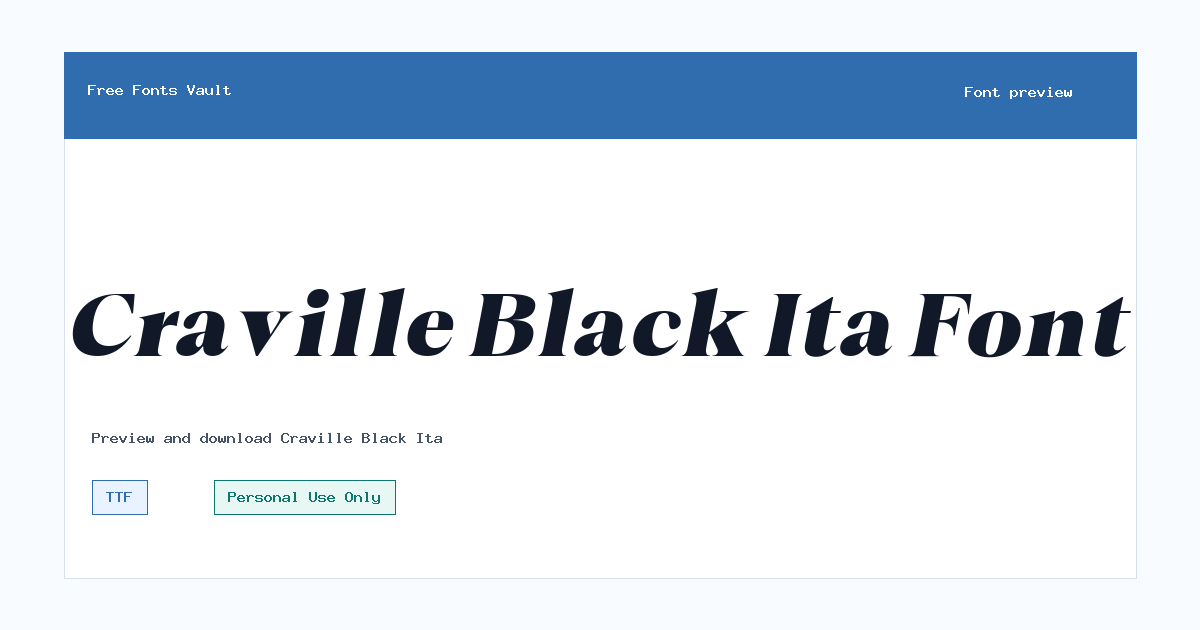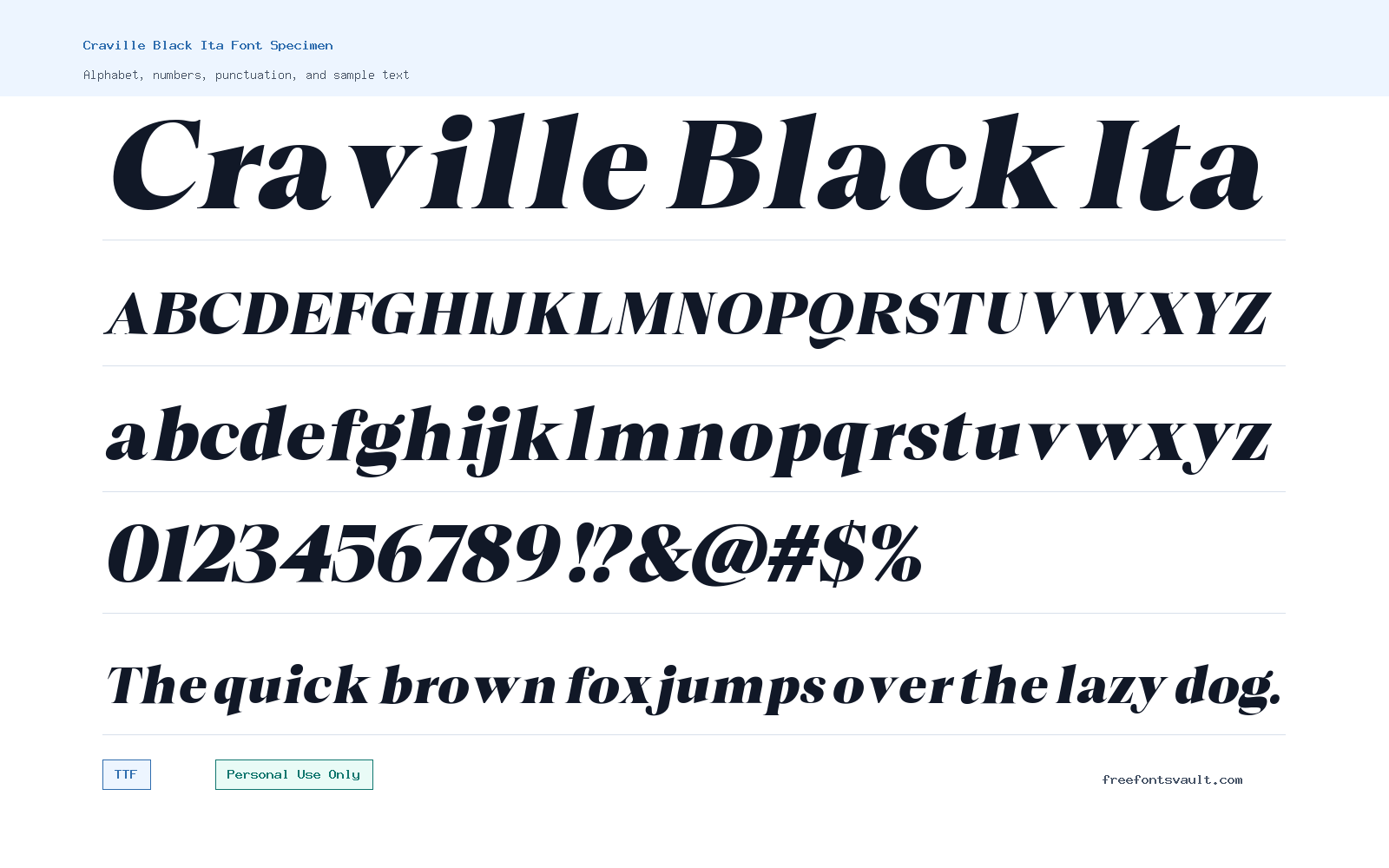
Craville Black Ita
Craville Black Ita is a heavy italic serif font with a bold, slanted display style. It is best suited for short text where you want a strong typographic voice, such as titles, logo drafts, poster headings, and brand mockups.
Craville Black Ita uses a black weight and italic style, giving it a firm presence with a forward-leaning shape. That combination makes it more useful as a display font than as a long-reading text face. In a headline, the weight can feel confident and polished; in small paragraphs, the heavy strokes and italic angle may become harder to read. Use it where the words are short, the spacing has room to breathe, and the type can be treated as a main visual element rather than background text.
For design work, Craville Black Ita can fit personal projects that need a dramatic serif headline without moving into overly decorative lettering. Try it for poster titles, fashion-style graphics, quote cards, packaging concepts, editorial headers, invitation mockups, or logo exploration. Because the font is both heavy and italic, test it carefully in all caps, title case, and lowercase before finalizing a layout. It may need extra tracking in uppercase settings, while mixed-case text can help keep the rhythm more readable. For web mockups, use it as a hero heading or accent type, then pair it with a calmer sans serif or readable text serif for body copy.
Craville Black Ita is also worth testing in contrast-heavy layouts. Pair it with simple backgrounds, restrained colors, and generous margins so the letterforms can carry the attention. If you combine it with another font, avoid pairing it with a second loud display face unless the design is intentionally experimental. A neutral grotesque, humanist sans serif, or classic readable serif will usually make the layout easier to control. Use Craville Black Ita for emphasis, not for every layer of text. That keeps the design clear and helps the font feel intentional.
• Black-weight italic serif styling for strong display headlines and short text
• Best suited to large-size typography rather than long body copy
• Forward-leaning letterforms that can add motion and emphasis to titles
• Useful for personal-use mockups, posters, logo studies, and editorial-style graphics
• Poster headlines and event-style title designs
• Logo drafts, wordmark exploration, and branding mockups
• Fashion, editorial, and portfolio-style hero typography
• Social media quote graphics and bold text overlays
• Packaging concepts, invitation headings, and display layouts
• Website hero sections where the font is used sparingly
Use Craville Black Ita at larger sizes and keep the wording short. Test spacing before exporting logos or poster artwork, especially in all caps. For balanced layouts, pair it with a simple sans serif or readable text font and let Craville Black Ita handle the main title or accent line.
What kind of font is Craville Black Ita?
Craville Black Ita is a heavy italic serif display font. Its black weight and slanted style make it better for headings, logos, posters, and short design text than for long paragraphs.
Is Craville Black Ita good for logos?
What fonts pair well with Craville Black Ita?
Pair it with a quiet sans serif or a readable text serif. Since Craville Black Ita is already heavy and italic, a simpler companion font will keep menus, paragraphs, captions, and supporting text easier to read.
Should I use Craville Black Ita for body text?
It is not the best choice for body text. The black weight and italic angle are stronger at display sizes, so use it for titles or short accent lines and choose another font for paragraphs.